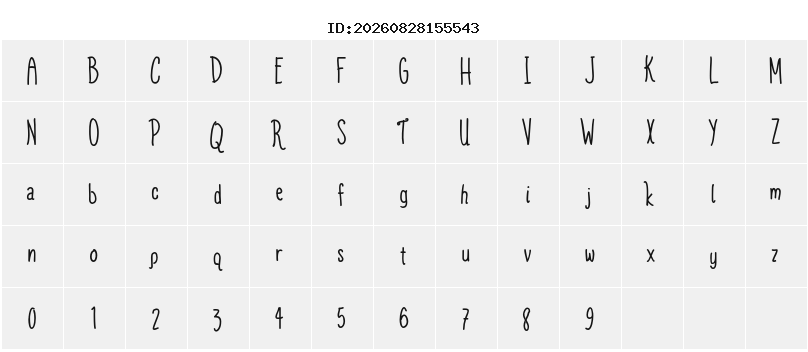
Tinfoil Tiara DEMO Preview
• Font Name: Tinfoil Tiara DEMO
• Full Font Name: TinfoilTiaraDEMO
• Designer: Violet MX
About Tinfoil Tiara DEMO.otf
Tinfoil Tiara DEMO.otf is a modern, elegant sans-serif font designed for ultimate readability and visual harmony. Perfect for branding, headlines, web design, and print materials.